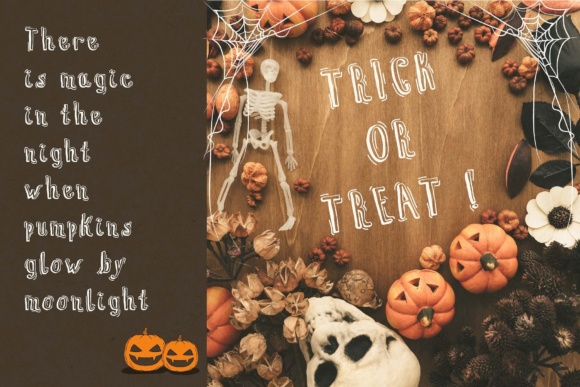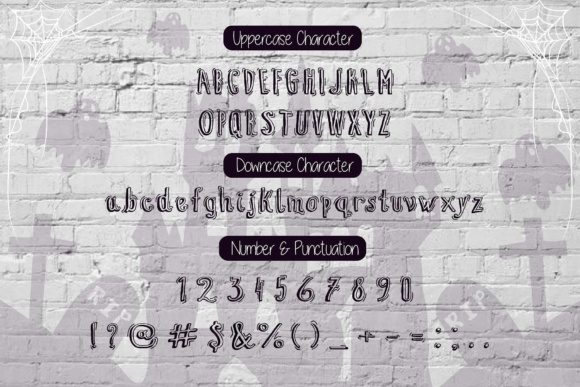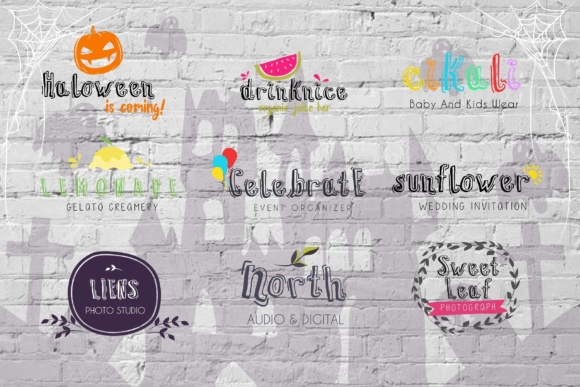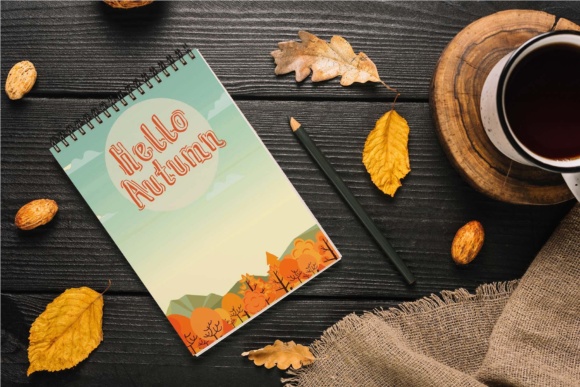
Introduction to Mischano Font
Do you remember the moment when a single design element sparks an entire creative project? For many designers, it’s a thrilling feeling that never gets old. For me, that moment came when I stumbled upon the Mischano Font. This enchanting, spooky Halloween-themed font had me hooked from the very first glance.
As a designer, you’re always on the lookout for that one special resource that elevates your work to the next level. The Mischano Font is more than just a font – it’s a design resource that offers high-quality, customizable elements to take your projects to new heights. With its transparent background and intricate illustrations, this font is a must-have for any creative project, especially those with a Halloween theme. And the best part? It’s available for free download, making it a valuable addition to any designer’s toolkit.
Whether you’re working on a spooky website, a Halloween-themed poster, or a creative project that requires a touch of eerie elegance, the Mischano Font is the perfect choice. In this article, we’ll explore the world of Mischano Font and show you how to create an extraordinary design using this unique and versatile font.
Key Features of Mischano Font
- Unique, modern font style suitable for a wide range of applications
Honest Review: Mischano Font
As a designer, I’m always on the lookout for high-quality design resources to elevate my creative projects. Recently, I stumbled upon the Mischano Font, and I must say it’s a gem.
- ✨ Beautiful, hand-drawn illustrations that add a touch of whimsy to any design
- ✨ A wide range of characters, including numbers, punctuation, and special symbols
- ✨ Transparent background, making it easy to layer and manipulate in design software
- ✨ High-quality vectors, perfect for scaling up or down without losing any details
- ⚠️ Limited language support, which might be a concern for designers working on multilingual projects
- ⚠️ Not suitable for very small font sizes, as the illustrations might become pixelated
Overall, I’m impressed with the Mischano Font. It’s a versatile design resource that’s perfect for creative projects that require a touch of personality. While it’s not perfect, the benefits far outweigh the limitations. Plus, it’s free to download, making it an excellent value for designers on a budget.
Tips for Getting the Most Out of Mischano Font
For a transparent background, use the Mischano Font on a layer with a transparent background in Adobe Photoshop or Illustrator. Experiment with different font sizes and styles to achieve a unique look.
Common Use Cases for Mischano Font
The Mischano Font is suitable for a wide range of creative projects, including logos, social media graphics, and marketing materials. Its high-quality design makes it an ideal choice for both personal and professional projects.
Can I use the Mischano Font with a transparent background?
Yes, the Mischano Font supports transparent backgrounds, making it ideal for designs that require a clear and unobstructed view of the text. However, you may need to use a design software that supports transparent backgrounds, such as Adobe Photoshop or Illustrator, to take full advantage of this feature.